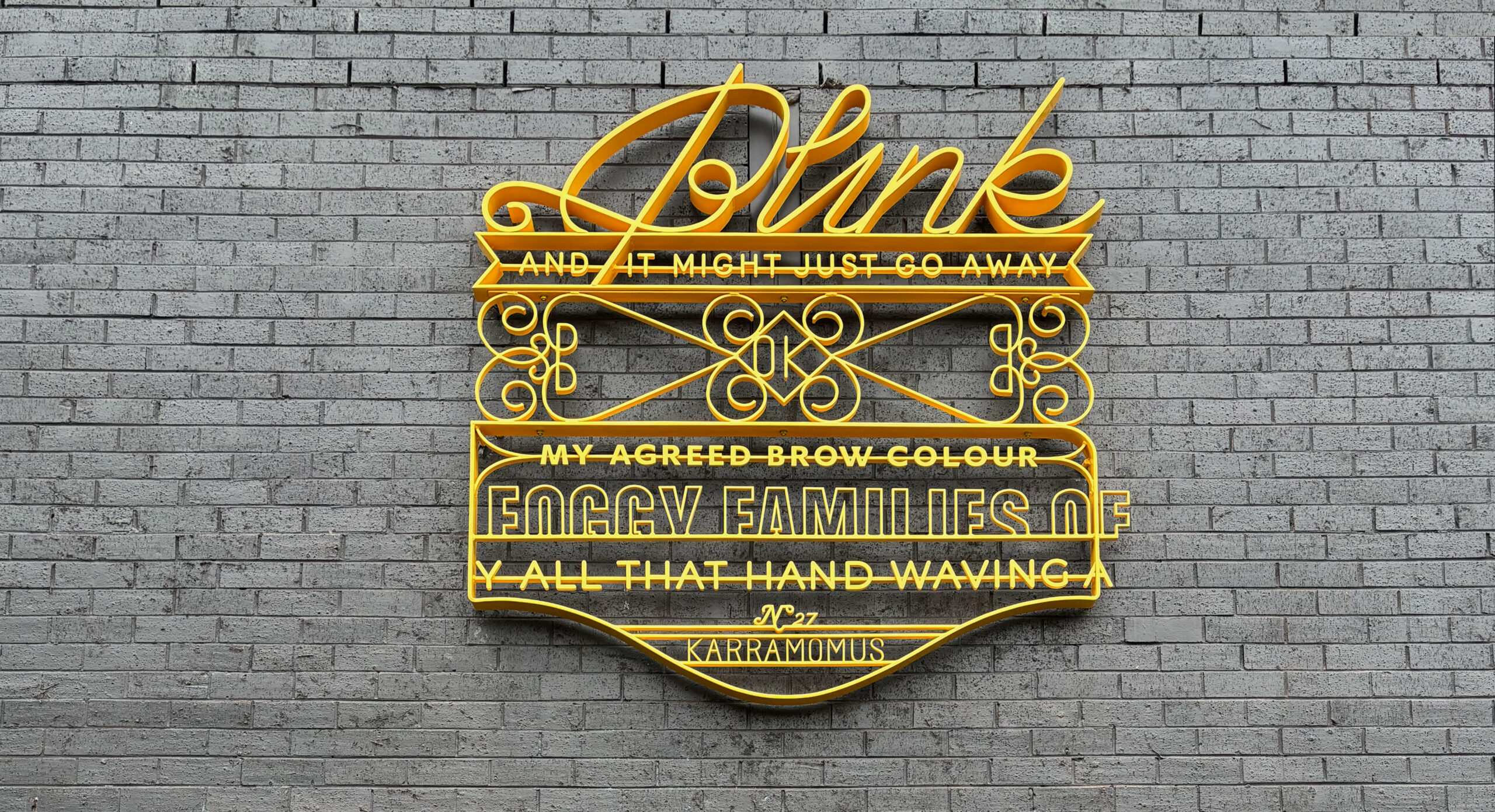
Monument to the Overheard
Monument to the Overheard offers fragments of real conversations overheard at the Prahran Market in 2023. The result is a site-specific solid steel typographic installation, monumentalising these tiny snippets of incidental, everyday discussions.
From phrases of motherly comfort to her daughter (Blink and it might just go away…), a discussion of beauty treatments (my agreed brow colour…) or a comment on the pandemic (foggy families of…), this work focusses on these puzzling slices of ‘chit-chat’, that cultural marginalia that eludes formal historical record.